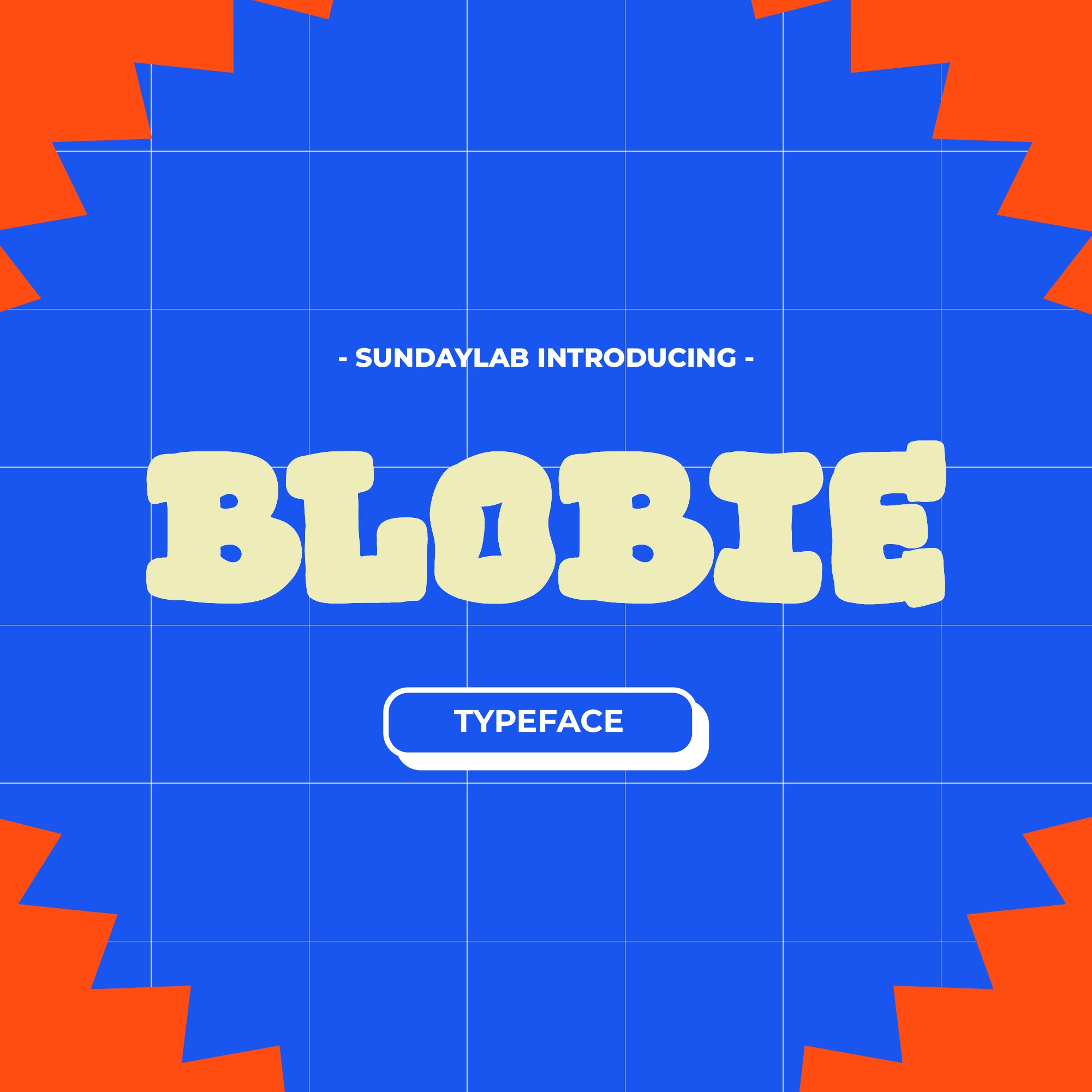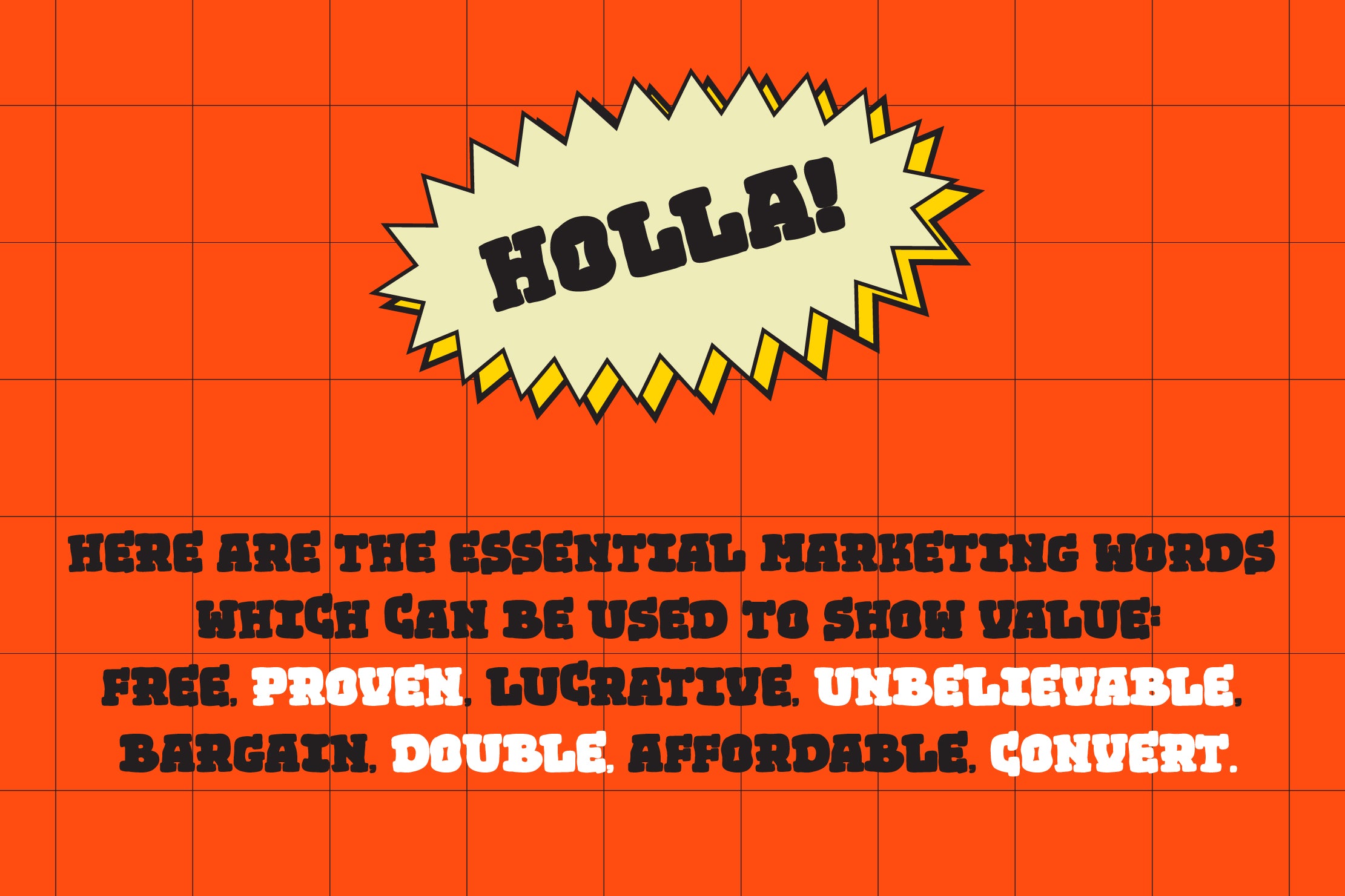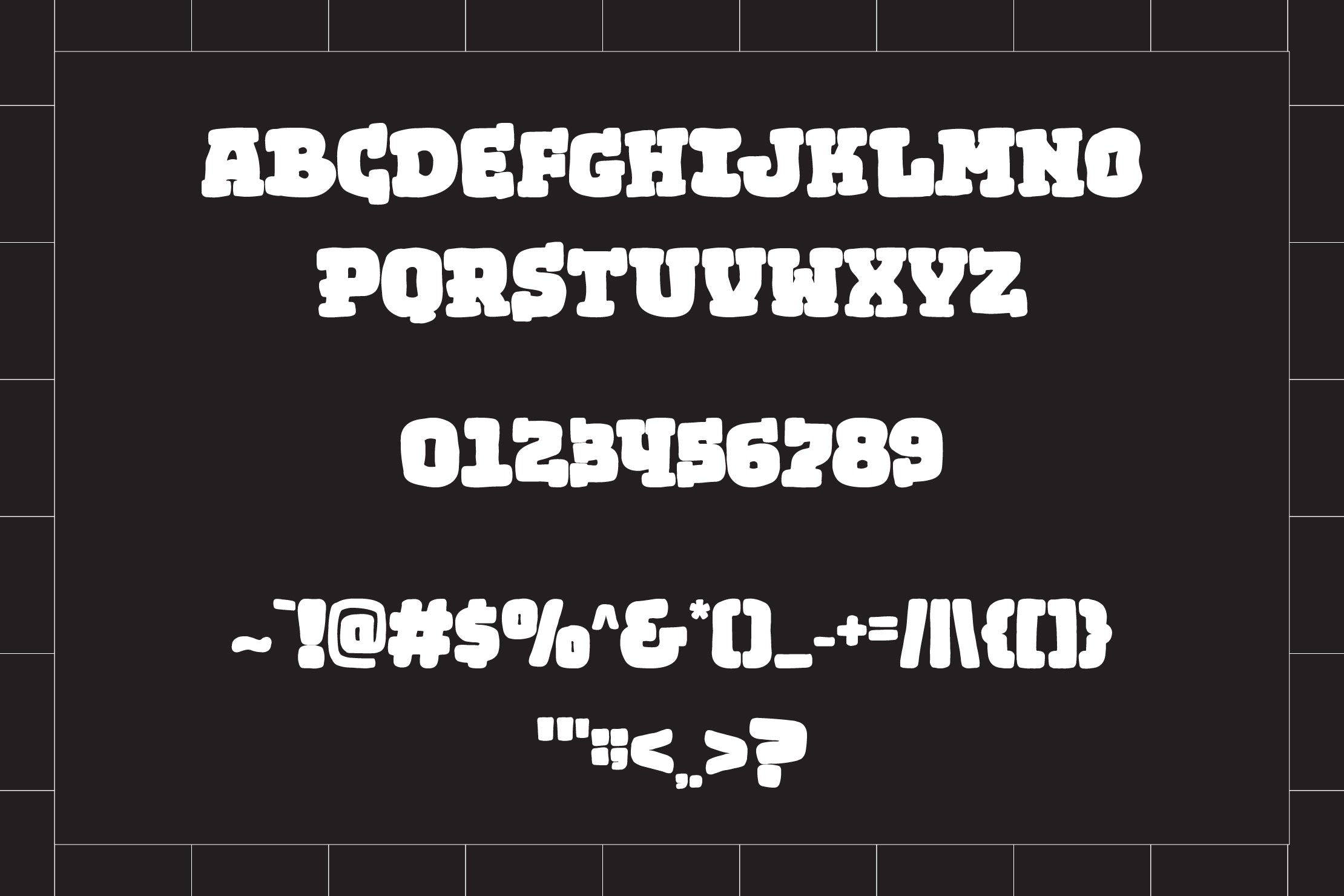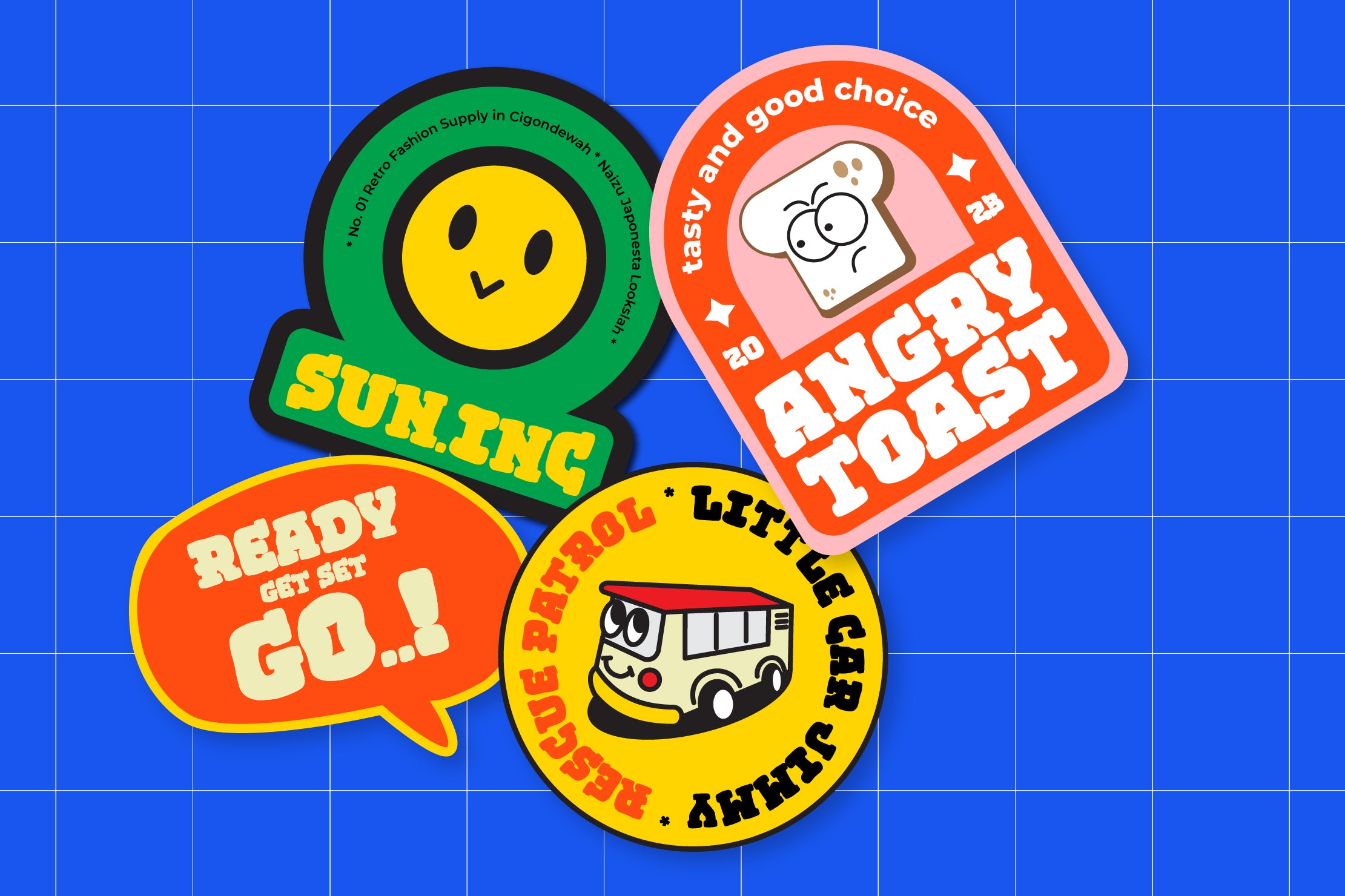
Blobie Typeface
Introducing
Blobie Typeface
Blobie is a bold and playful display typeface inspired by retro graphic design, groovy lettering, and expressive vintage typography.
Featuring chunky rounded shapes, soft curves, organic forms, and a distinctive handcrafted character, Blobie brings a fun and energetic personality to headlines and display compositions.
Its unique letterforms work especially well for posters, branding, packaging, editorial graphics, social media designs, invitations, logos, titles, merchandise graphics, and other creative projects that need a playful retro personality.
Blobie is designed to make short words and headlines instantly stand out while maintaining a friendly and approachable visual character.
Blobie Typeface is a bold and playful display typeface featuring chunky rounded shapes and soft curves, inspired by retro graphic design and vintage typography. It includes .otf and .ttf files, providing unique letterforms suitable for a variety of creative projects.